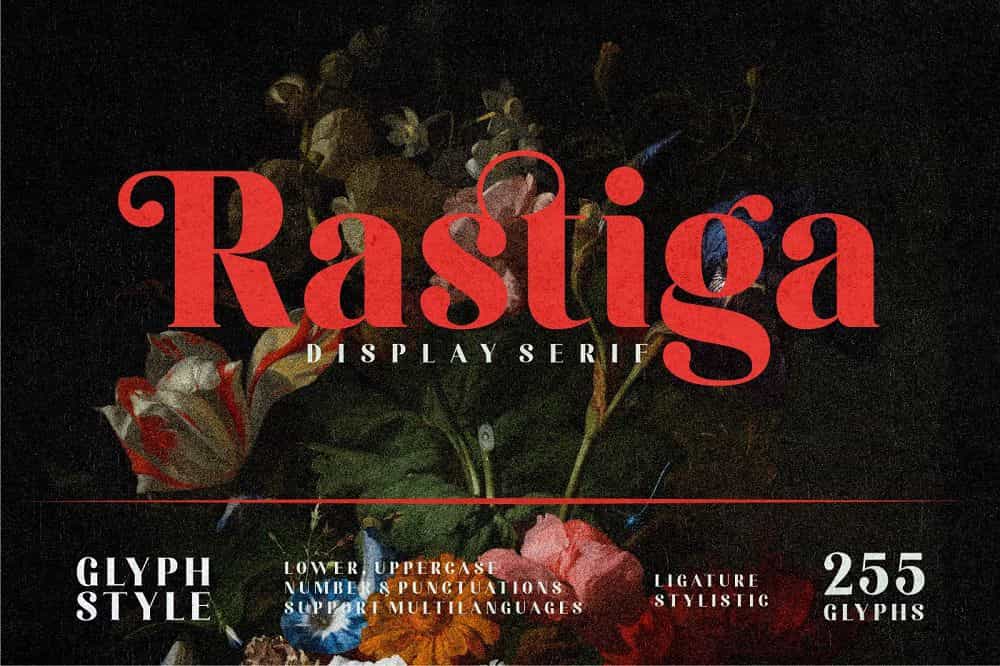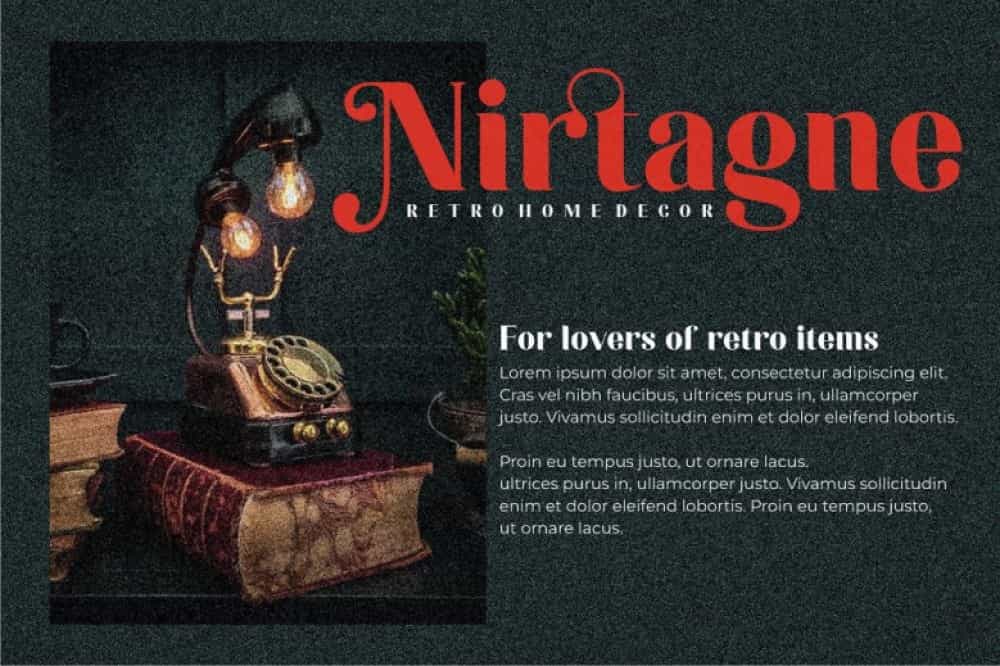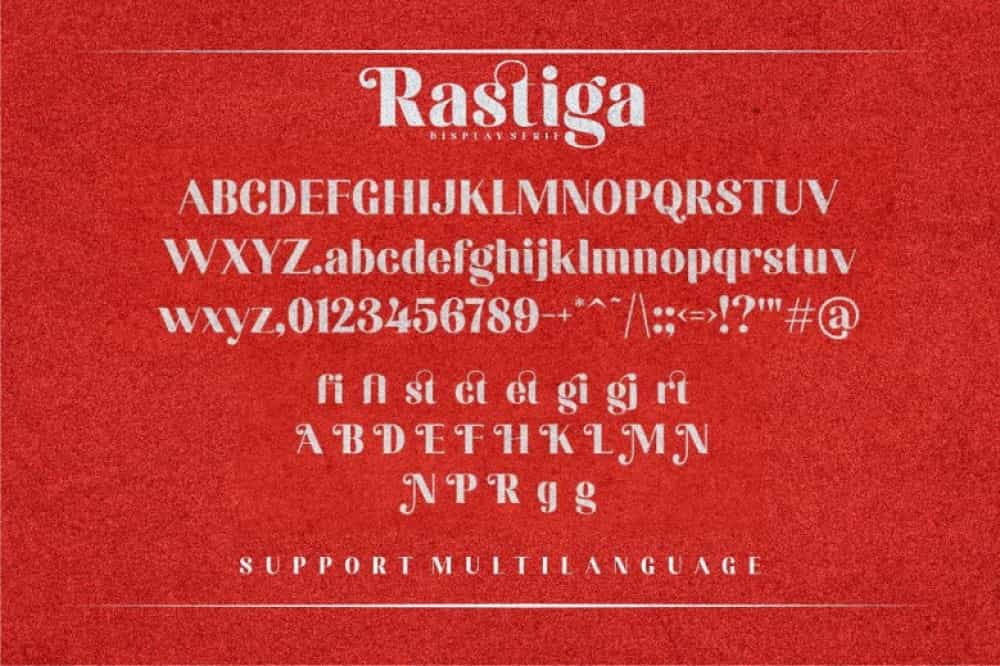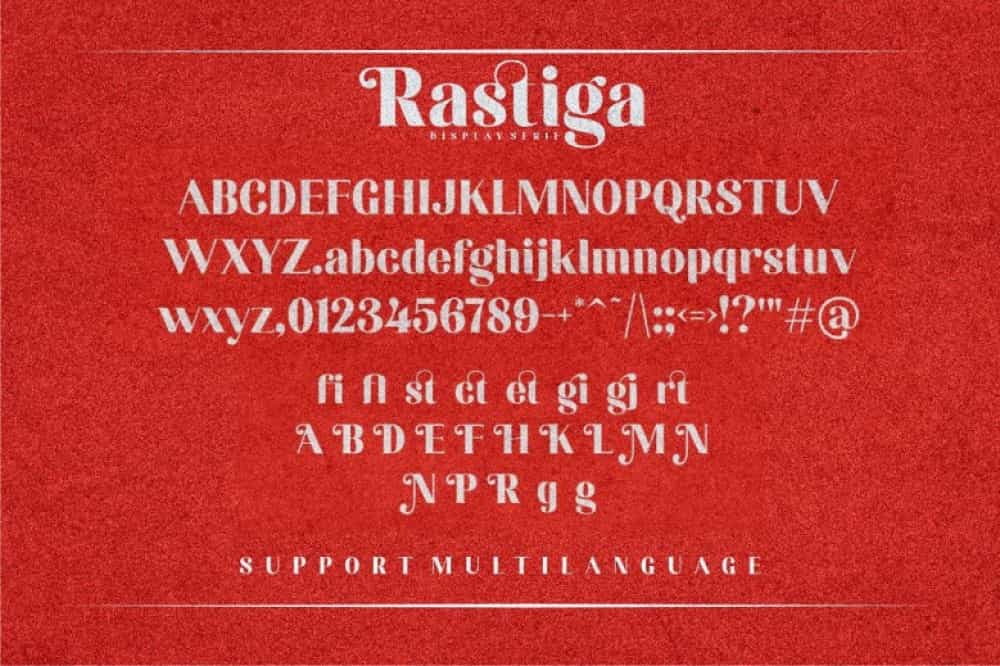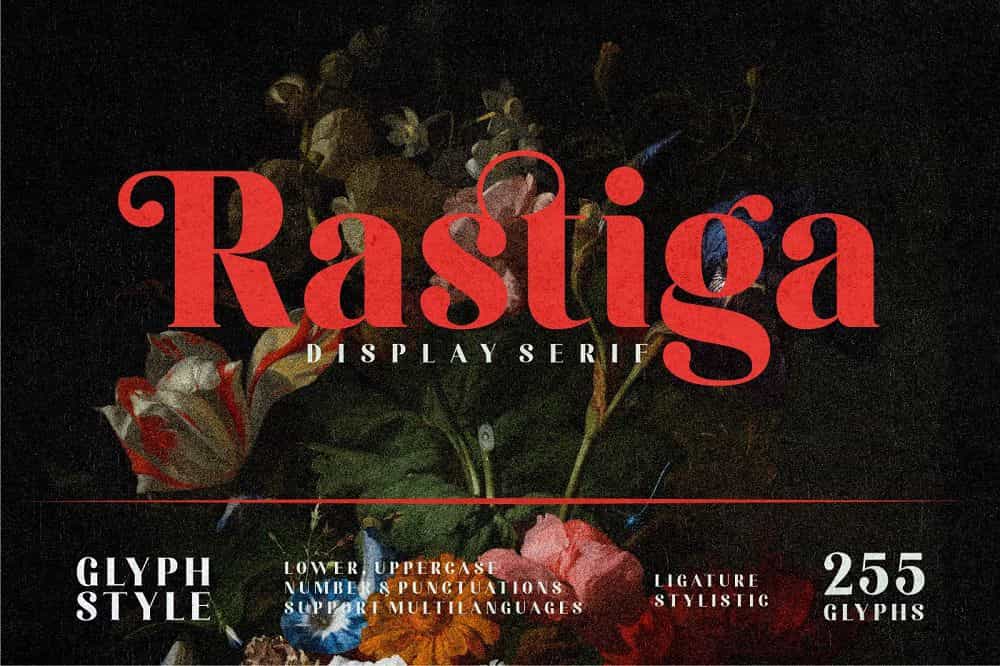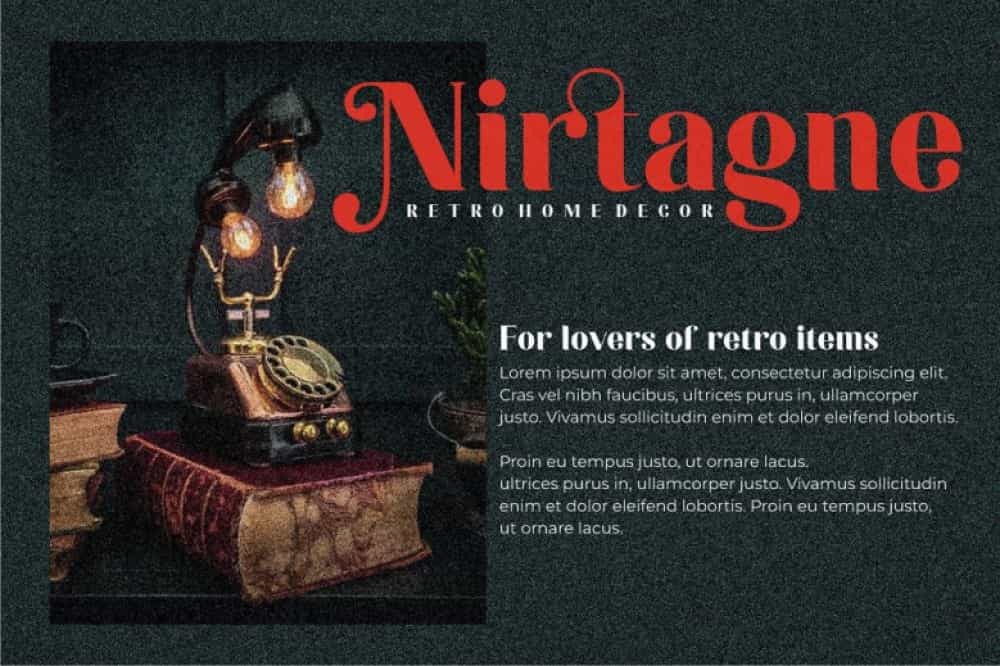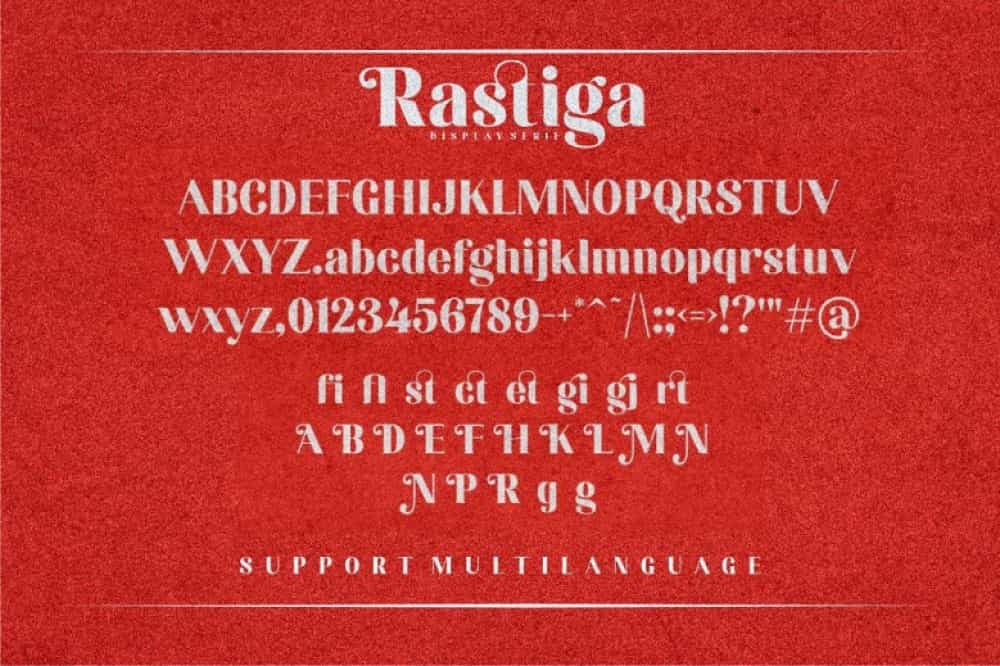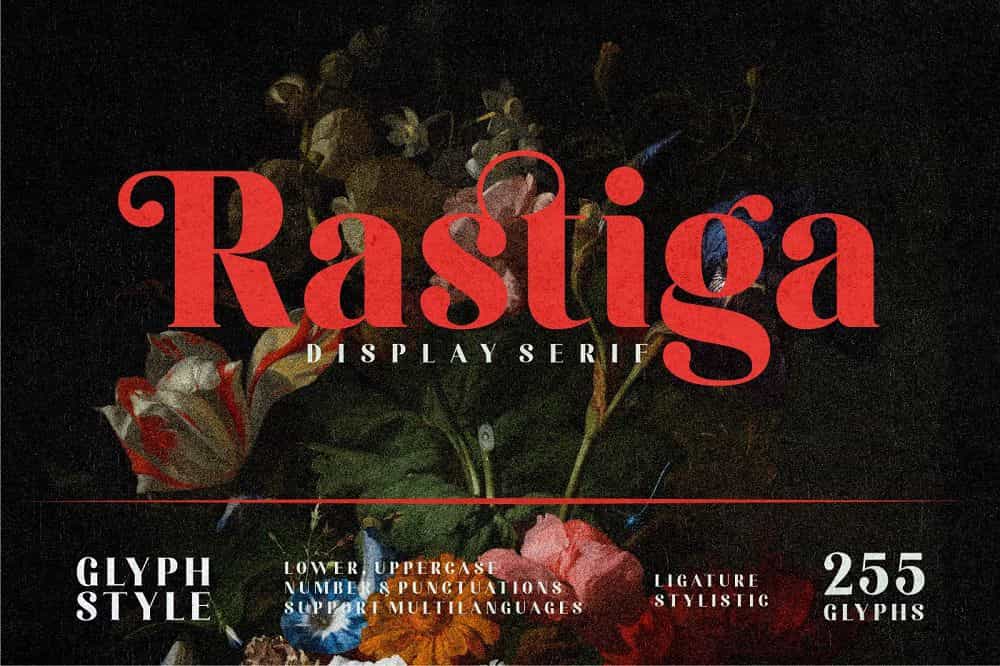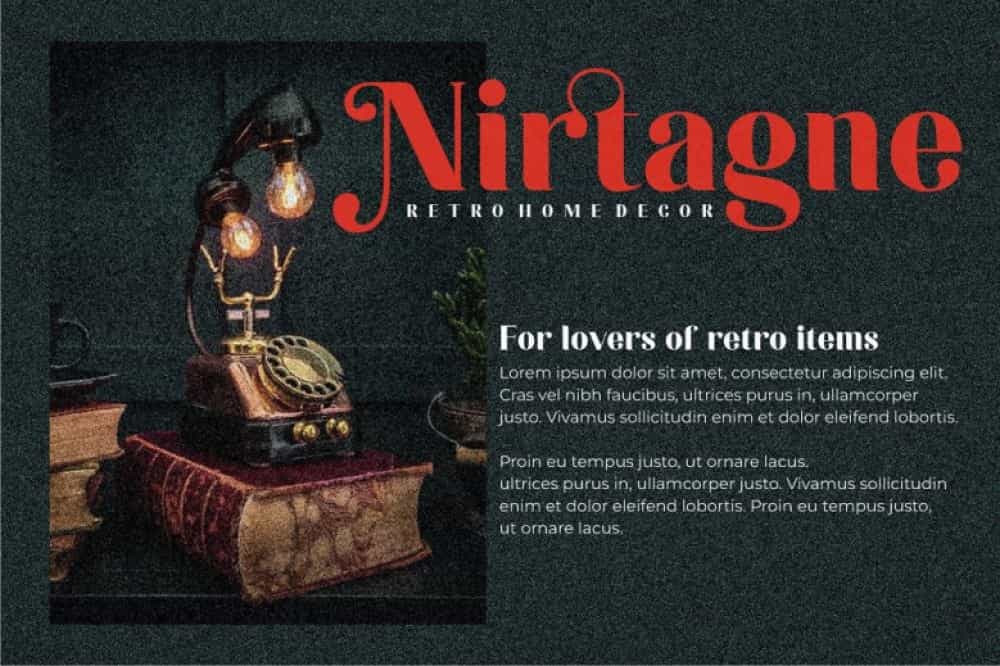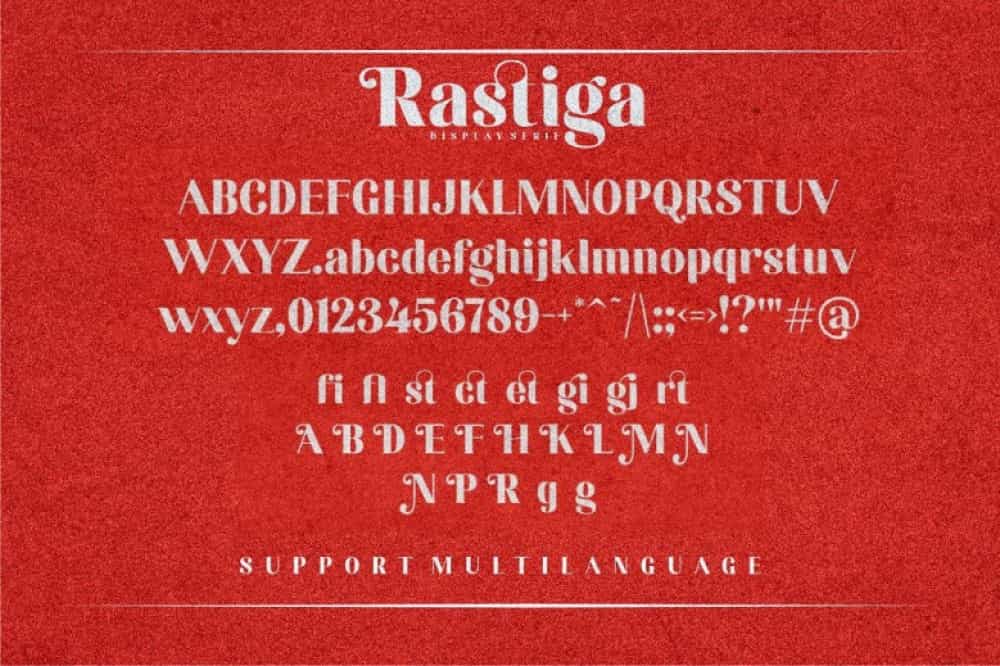
Rastiga Font
Rastiga is a display serif typeface that has a bold and chic look; however, it has a somewhat vintage feel to it. That have very straight and neatly cut edges that make it easy to read especially at the tips of the letters.